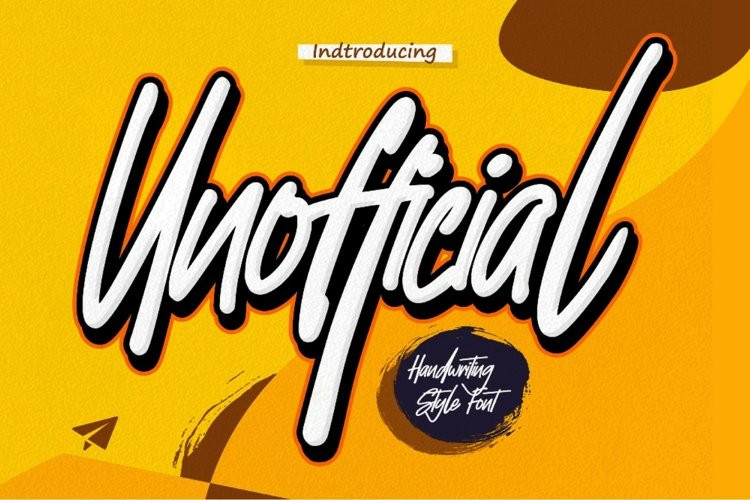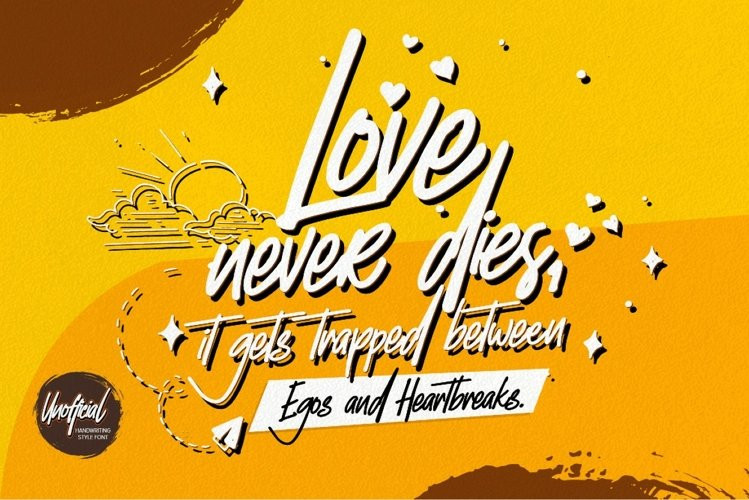
Unofficial Font
Unofficial FontIntroducing unofficial – Brush Script is a Authentic brush script that is written casually and quickly. Letters are made with procreate. Then scanned and carefully drawn into vector format.
That is why unofficial has charming, authentic and relaxed characteristic more natural look to your text with a more natural look to your text. You can activate Ligature OpenType panel, unofficial Perfect for designs,branding projects, Logo design, Quotes product packaging